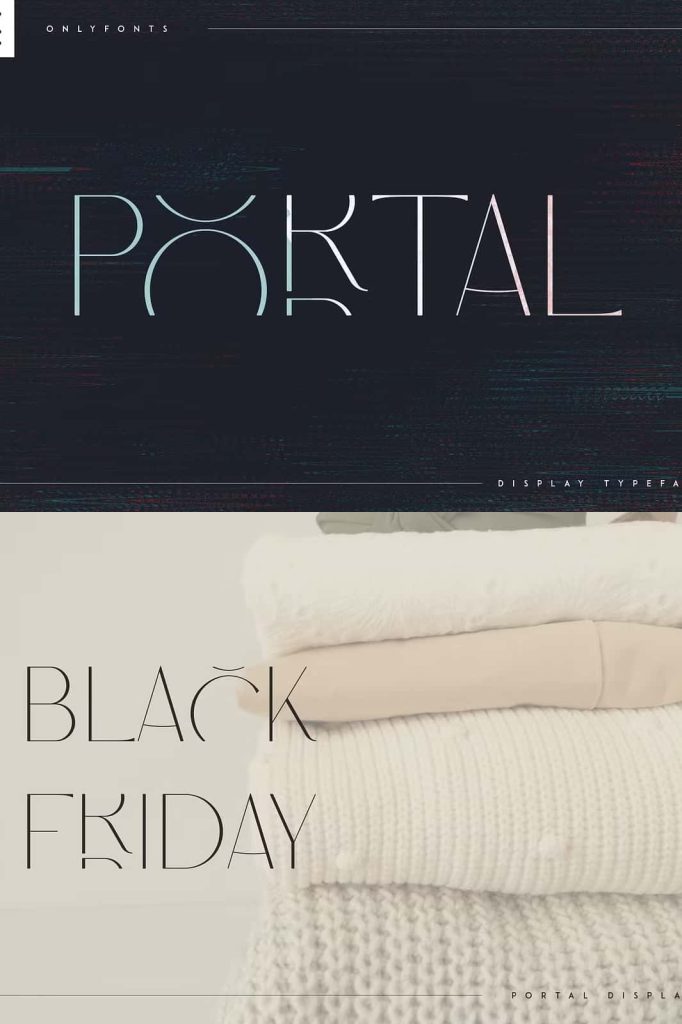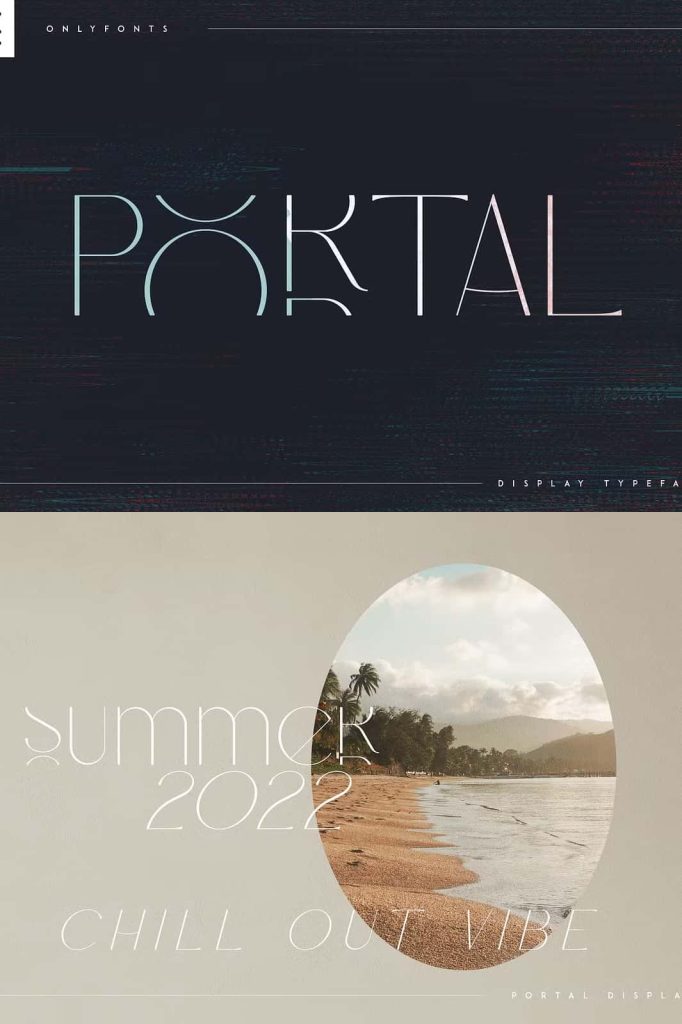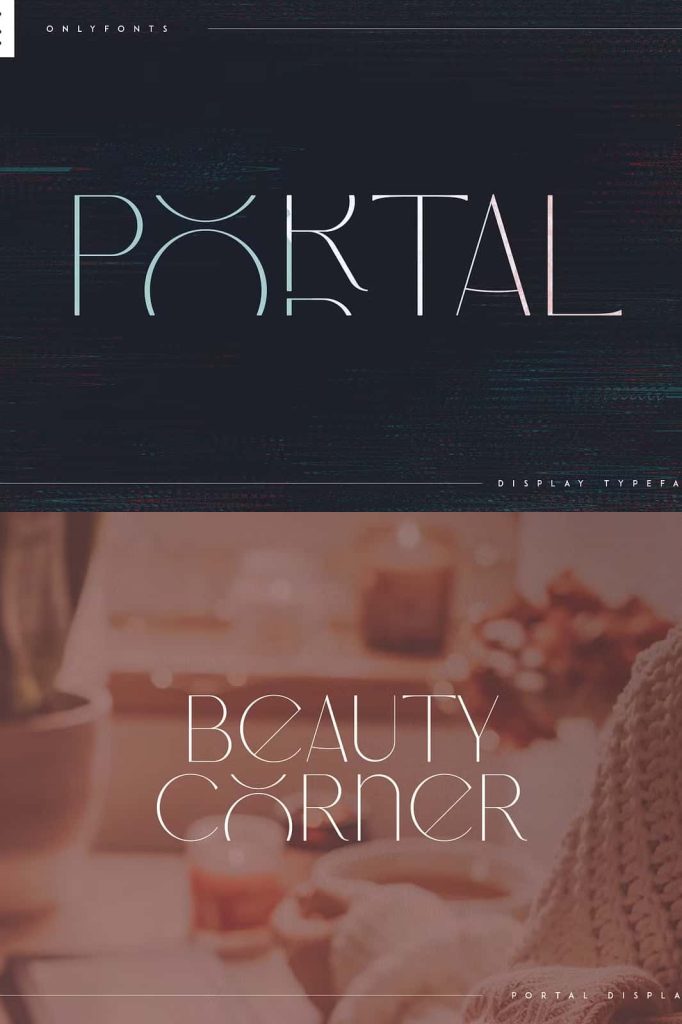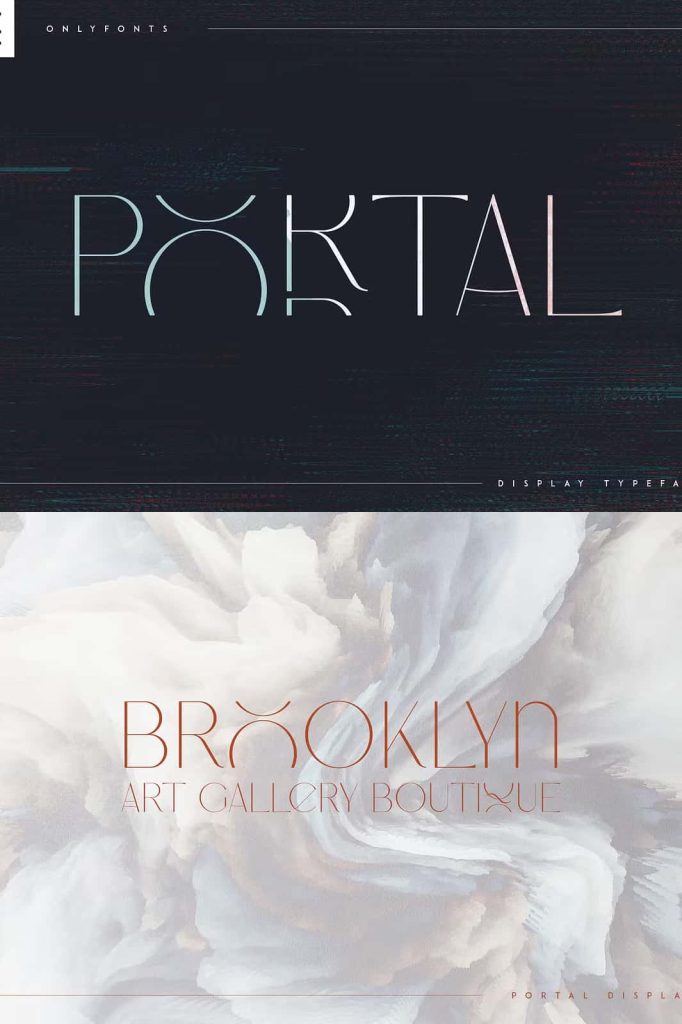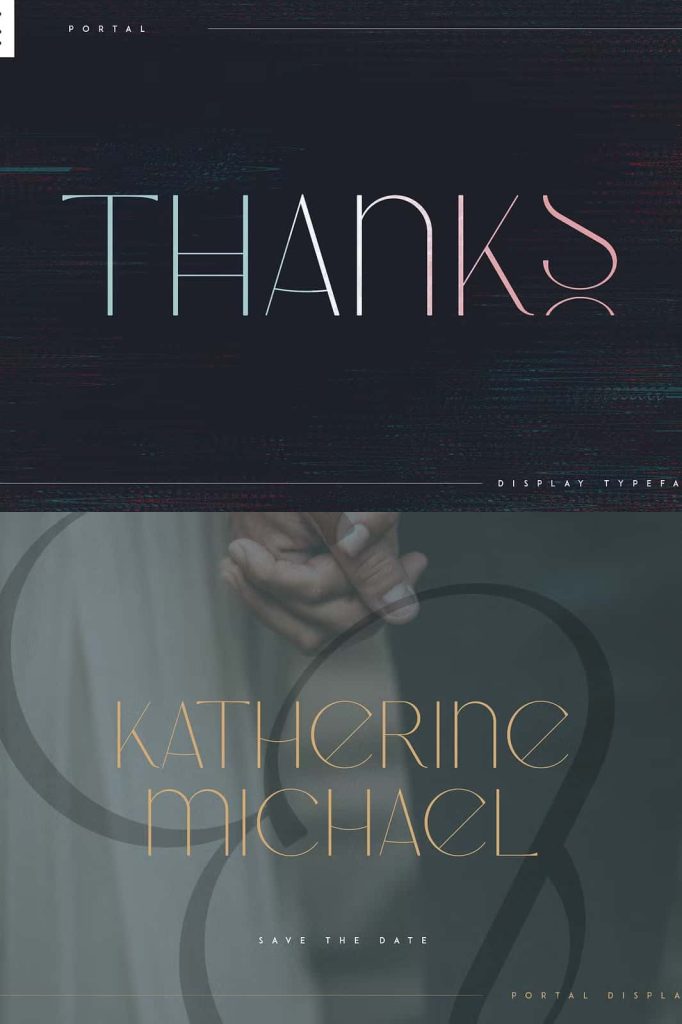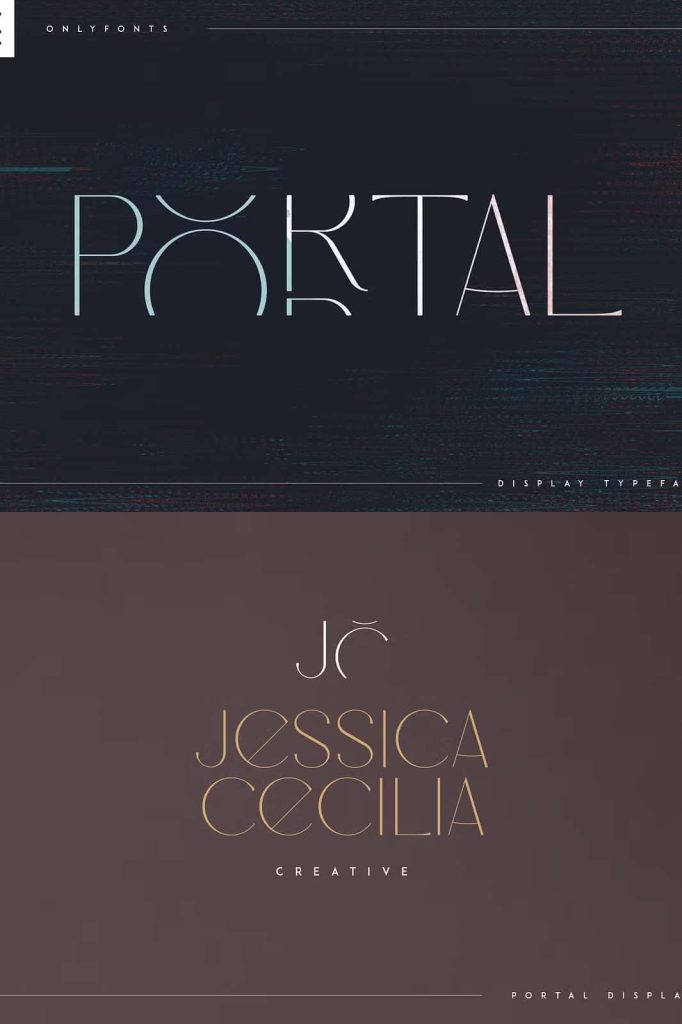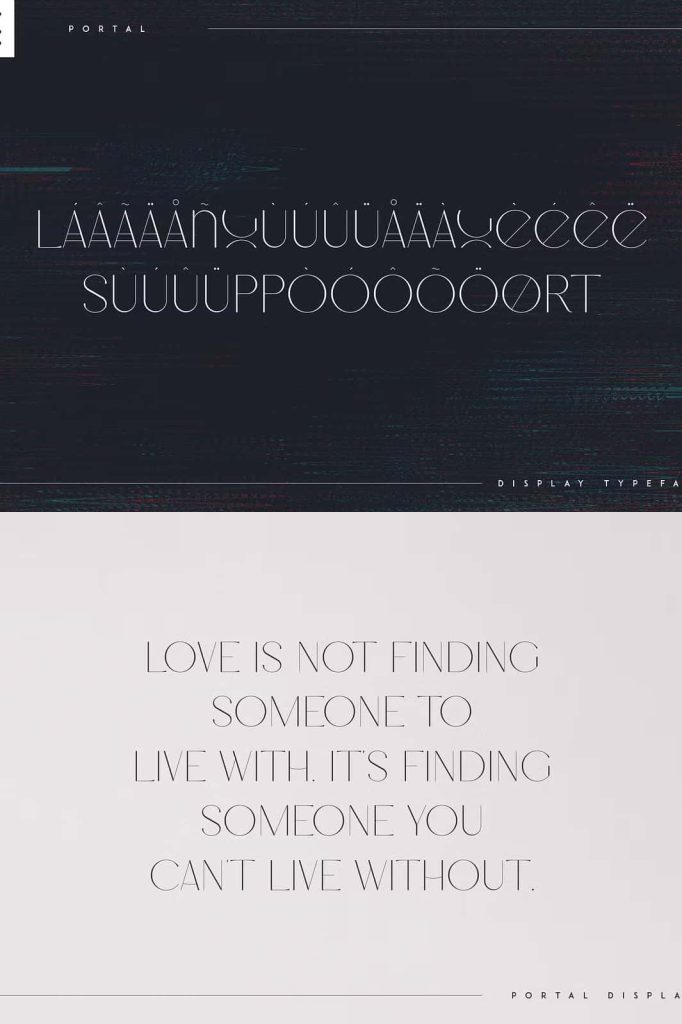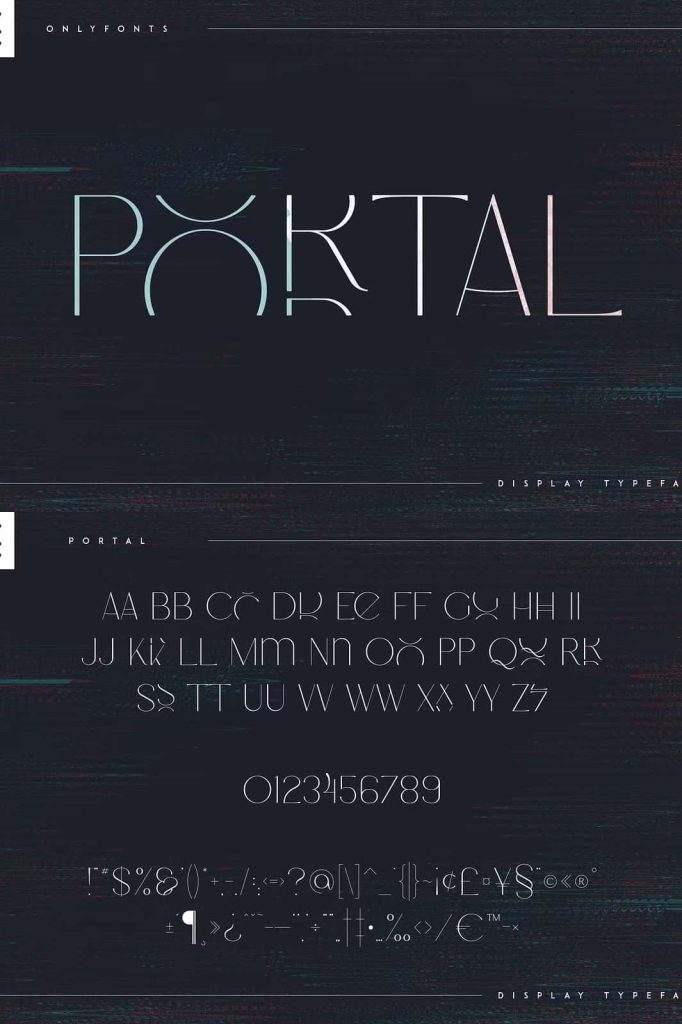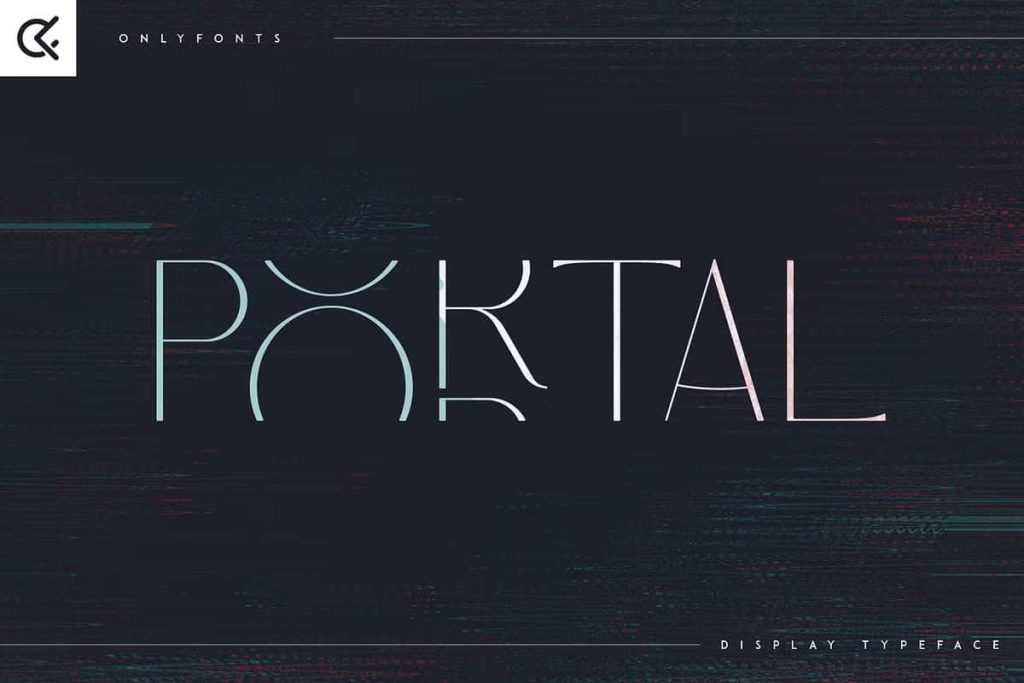
Portal – Display Typeface
Portal Creative Elegant Font
Portal is a creative and elegant font designed to deliver versatility, clarity, and refined style across a wide range of design projects. Built with a strong focus on balance and usability, this typeface adapts effortlessly to both large and small sizes, making it a reliable choice for designers who need consistent performance in every context. With multilingual support included, Portal expands your creative reach and allows you to communicate effectively with diverse audiences.
This font combines modern aesthetics with practical functionality. It helps you create visually engaging compositions while maintaining readability and professional quality. Whether you design for branding, editorial layouts, or digital platforms, Portal provides the flexibility you need to achieve polished results.
Elegant Design with Creative Flexibility
Portal features clean and refined letterforms that create a sophisticated visual presence. Its elegant structure allows it to fit seamlessly into both minimal and expressive design styles. The font maintains a sense of balance that enhances readability while still offering enough character to stand out.
Designers can use Portal to build compositions that feel modern and stylish without appearing overly complex. Its versatility allows you to experiment with different layouts and design directions while maintaining a cohesive look.
Optimized for All Sizes
One of the key strengths of Portal is its ability to perform well at both large and small sizes. At larger scales, the font delivers strong visual impact, making it ideal for headlines, titles, and display text. At smaller sizes, it maintains clarity and legibility, ensuring that your content remains easy to read.
This adaptability makes Portal suitable for a wide range of applications, from bold marketing materials to detailed editorial layouts. You can rely on the font to maintain its quality regardless of the size or format of your design.
Multilingual Support for Global Reach
Portal includes multilingual support, allowing you to create designs that communicate across different languages and regions. This feature makes it especially valuable for international branding, global marketing campaigns, and diverse audiences.
By using a font that supports multiple languages, you can maintain a consistent visual identity while expanding your reach. Portal ensures that your typography remains cohesive and professional, no matter the language you use.
Perfect for Branding and Packaging
Portal works exceptionally well in branding and product packaging. Its elegant appearance helps create a strong and memorable identity, while its readability ensures that important information remains clear. Designers can use it to craft logos, labels, and packaging designs that feel both modern and timeless.
The font’s versatility allows it to adapt to different brand personalities, from luxury and premium to creative and contemporary. This flexibility makes it a valuable tool for building cohesive brand systems.
Ideal for Editorial and Digital Design
Portal excels in editorial applications such as magazine headers, feature titles, and layout design. Its clean structure and balanced proportions help create organized and visually appealing compositions. Designers can use it to guide readers through content while maintaining a polished aesthetic.
In digital environments, Portal performs equally well. It renders clearly on screens, making it suitable for websites, social media graphics, and online publications. Its adaptability ensures that your designs remain consistent across different platforms.
Enhance Visual Storytelling
Typography plays a key role in storytelling, and Portal provides the tools to communicate your message effectively. Its elegant design helps set the tone of your projects, whether you aim to create a refined, modern, or creative atmosphere. The font allows you to highlight important elements while maintaining overall harmony in your design.
Use Portal as a stylish text overlay on background images to create visually engaging compositions. Its clarity ensures that your text remains readable while enhancing the overall aesthetic.
Create Versatile and Impactful Designs
Portal empowers designers to create work that feels both stylish and functional. Its combination of elegance, versatility, and multilingual support makes it a reliable choice for a wide range of creative projects. Whether you are designing for print or digital media, this font adapts to your needs and helps you achieve professional results.
By integrating Portal into your workflow, you can elevate your typography and create designs that capture attention and communicate effectively. It stands as a dependable font for designers who value flexibility, clarity, and modern elegance.